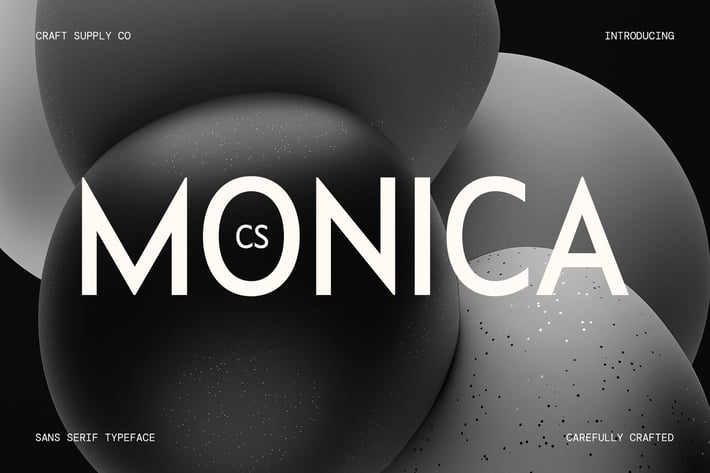
Monica – Contemporary Font
CS Monica – Contemporary Font: Modern Simplicity with Elegance
A Sleek and Minimalist Sans-Serif
CS Monica is a modern sans-serif font that embodies clean lines, refined structure, and geometric precision. Its minimalist design offers a sophisticated yet approachable appearance, making it ideal for branding, UI/UX design, editorial layouts, corporate identity, and digital media. Whether for sleek advertising campaigns or professional presentations, CS Monica delivers a polished and contemporary aesthetic.
Balanced Proportions for Versatility
With its harmonized letterforms and precise spacing, CS Monica ensures excellent readability across print and digital formats. Its well-balanced proportions make it perfect for headlines, body text, and user interfaces, allowing designers to achieve a cohesive and modern look across different platforms.
Smooth Angles for a Polished Look
Featuring precisely crafted letterforms with smooth angles, this font blends modern minimalism with timeless sophistication. The combination of subtle curves and geometric precision adds a sense of clarity and elegance, making it a great choice for luxury branding, corporate materials, and high-end editorial design.
Ideal for Professional and Modern Applications
CS Monica is designed to complement modern branding, sleek presentations, stylish packaging, and innovative web design. Its contemporary yet versatile nature ensures that it enhances any project with a fresh, polished, and professional feel.